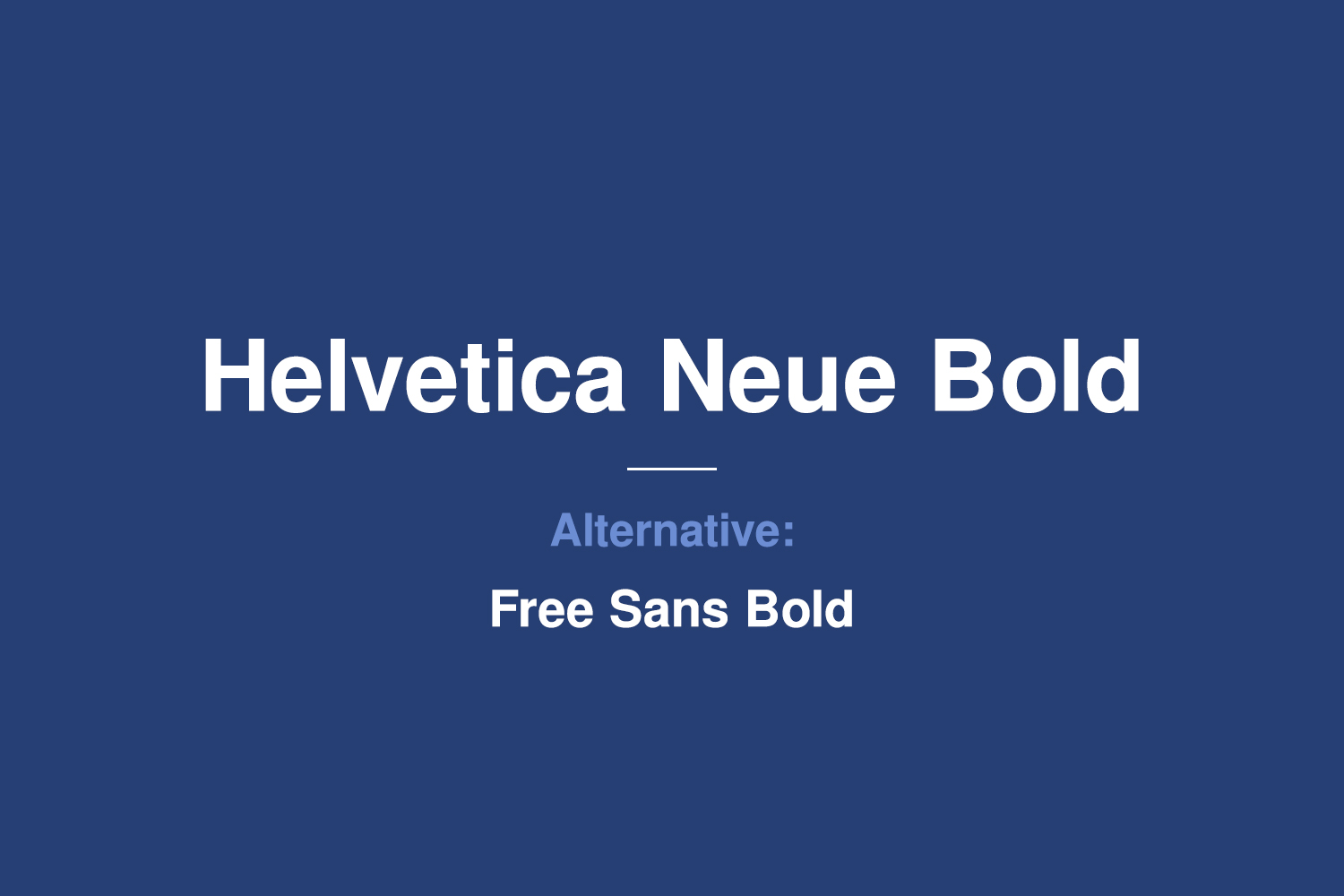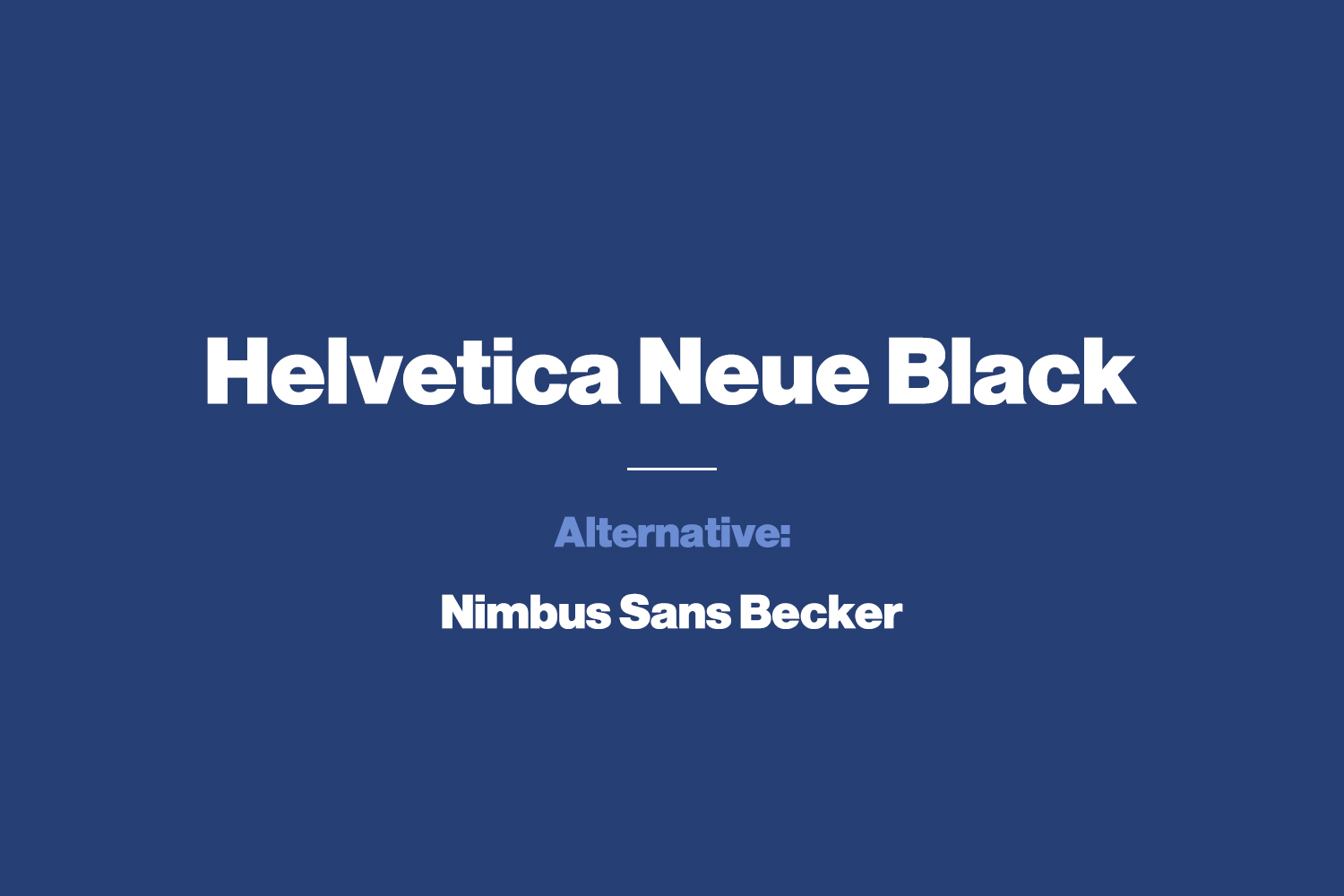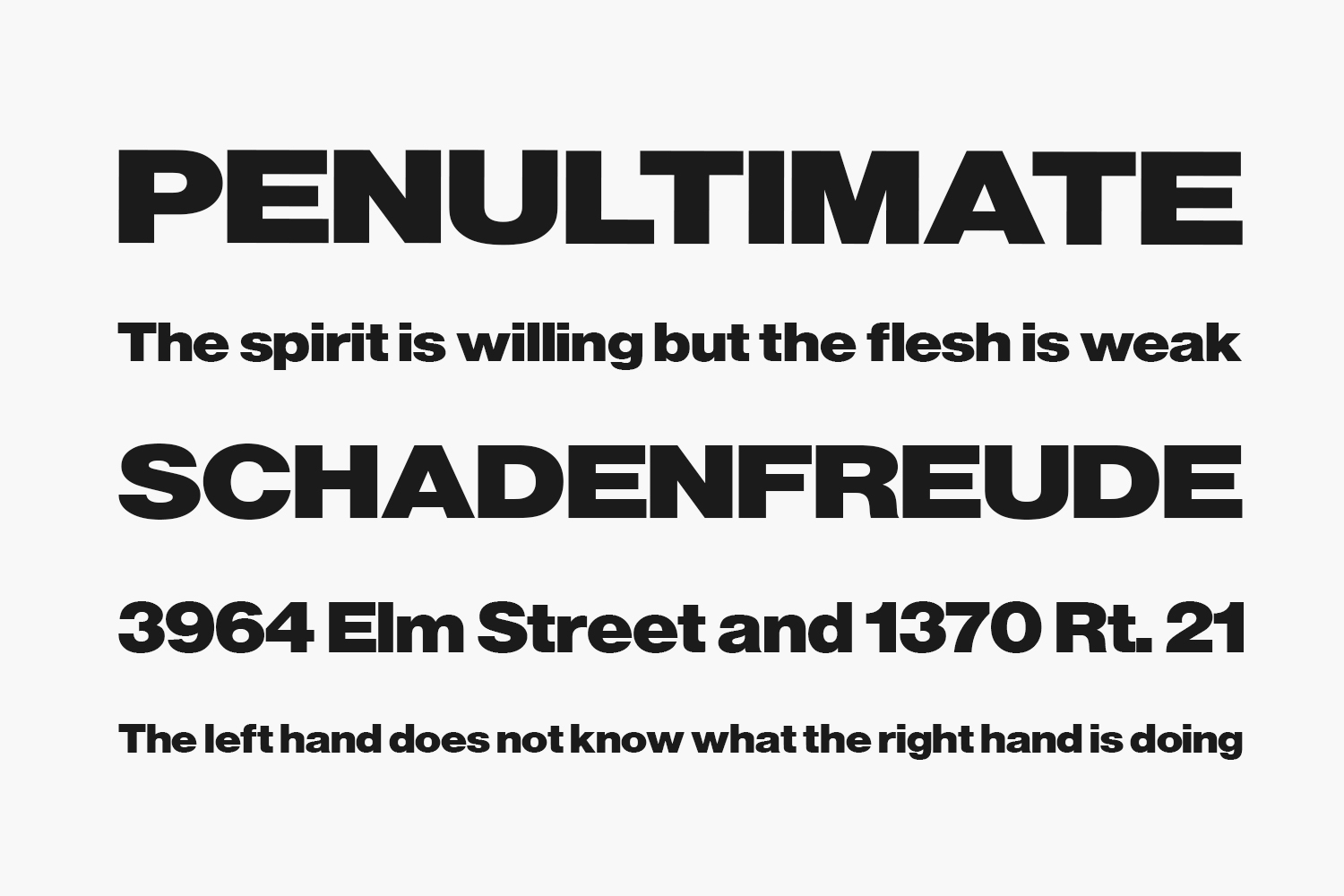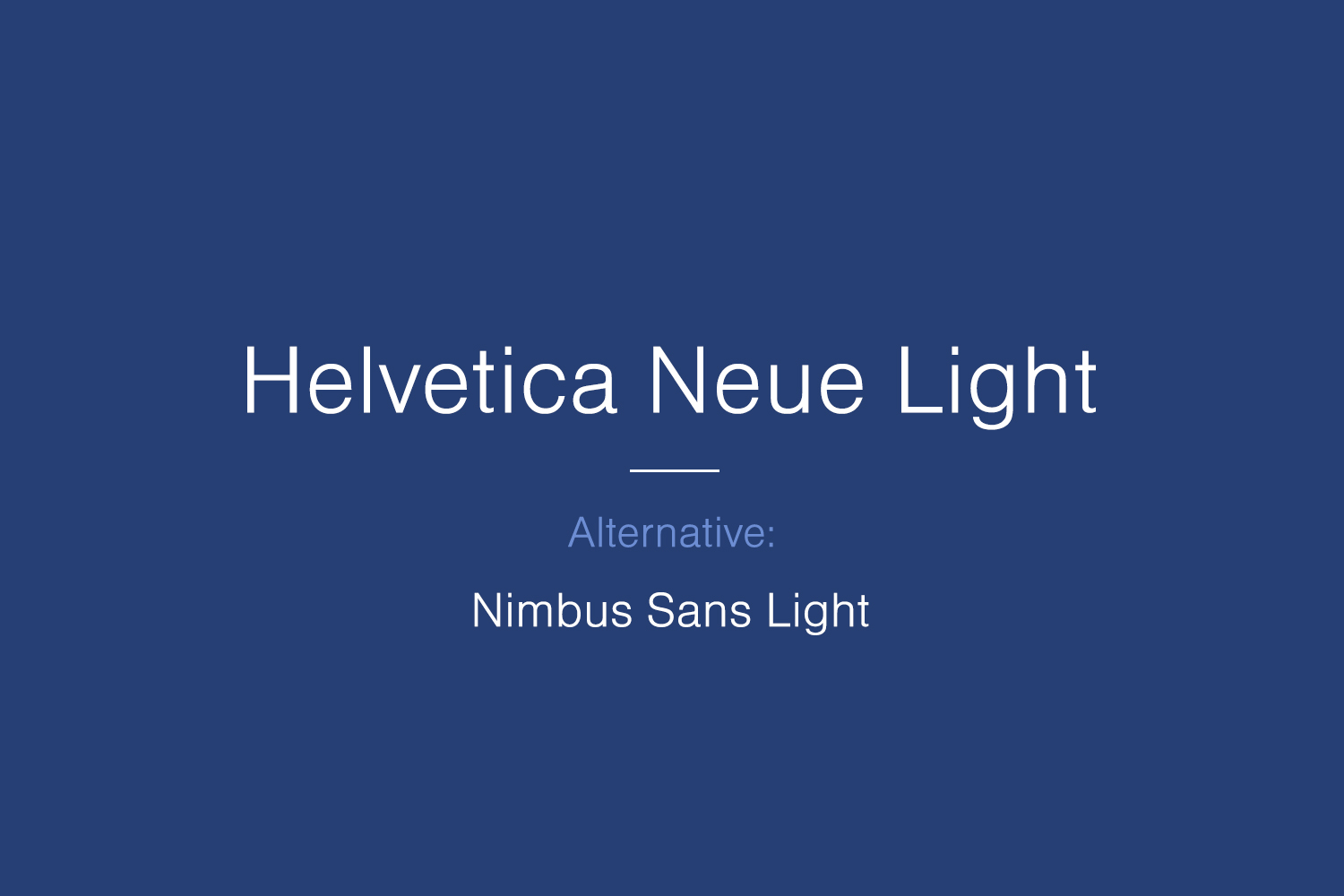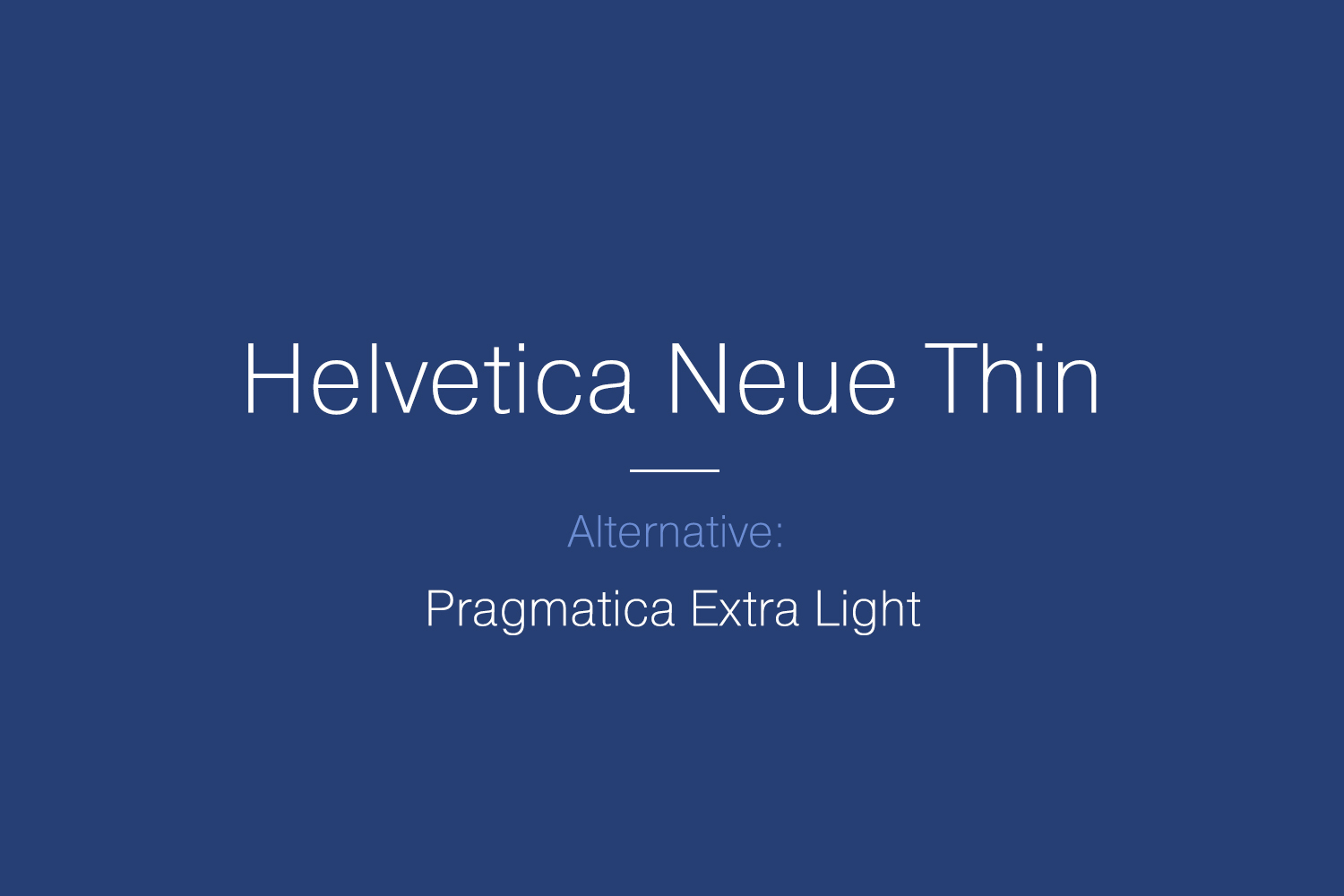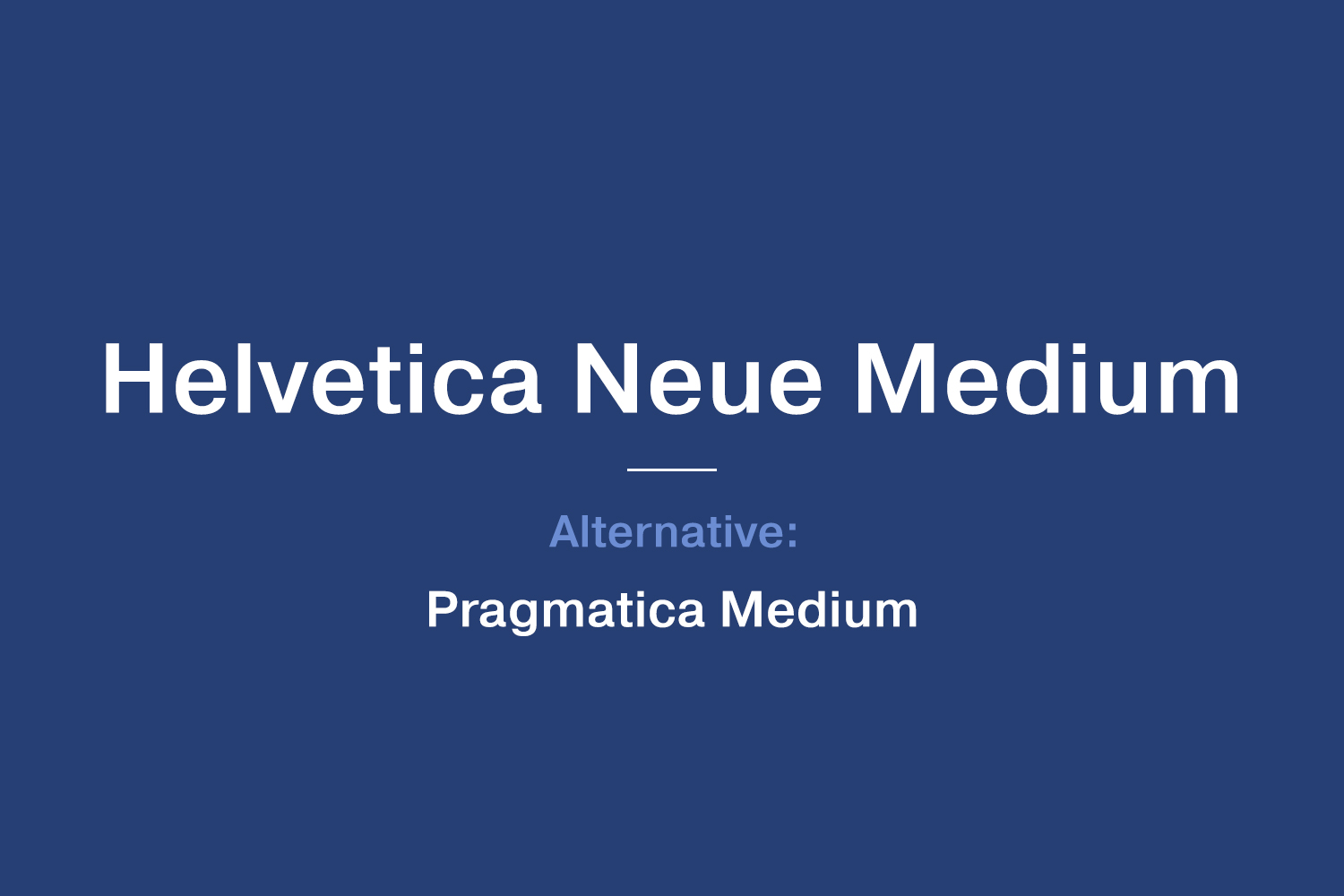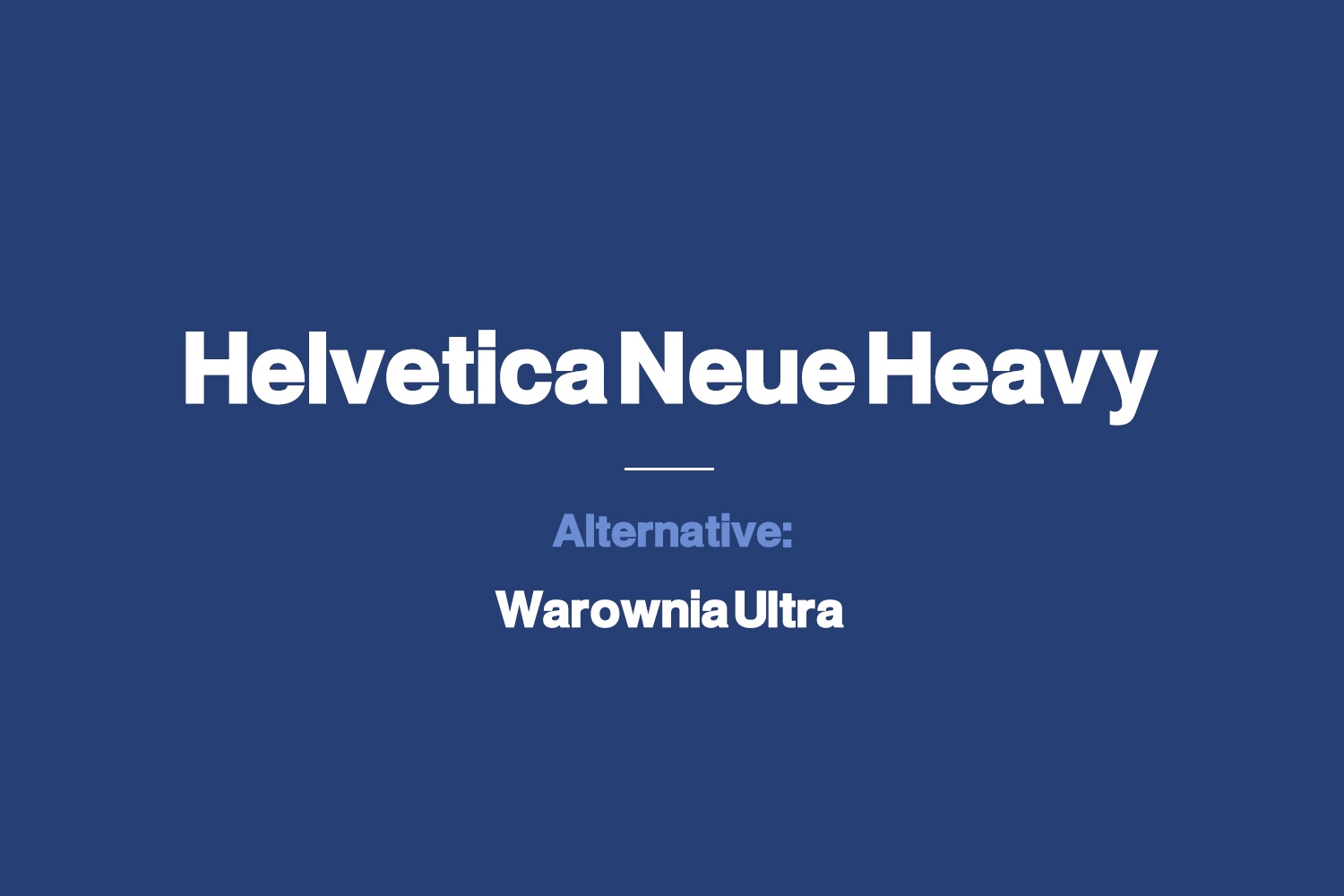
Helvetica Neue Font Family has an objective and functional style that was associated with Swiss typography in the 1950s and 1960s. The font is ideal for international correspondence: without ornament, without emotion, just a clear representation of information. The Helvetica font is still one of the most popular sans-serif fonts. Helvetica, an excellent font, can look back on a colorful life. Originally developed for manual composition, it has been adapted over the years for all composition methods, from the hotline of metal composition and the first-generation optomechanical photodetector to digital typesetters. Helvetica Neue Font Family is a paid font family. You can buy this font family here.
Here we are providing you some free alternative fonts to Helvetica Neue:
Helvetica Neue Thin β Pragmatica Extra Light
Helvetica Neue Ultra Light β Nimbus Sans Ultra Light
Helvetica Neue Light β Nimbus Sans Light
Helvetica Neue Roman β Free Sans Medium
Helvetica Neue Medium β Pragmatica Medium
Helvetica Neue Bold β Free Sans Bold
Helvetica Neue Heavy β Warownia Ultra
Helvetica Neue Black β Nimbus Sans Becker
These are free similar fonts to Helvetica Neue. We tried our best to find the best matching fonts of the Helvetica Neue Font Family.